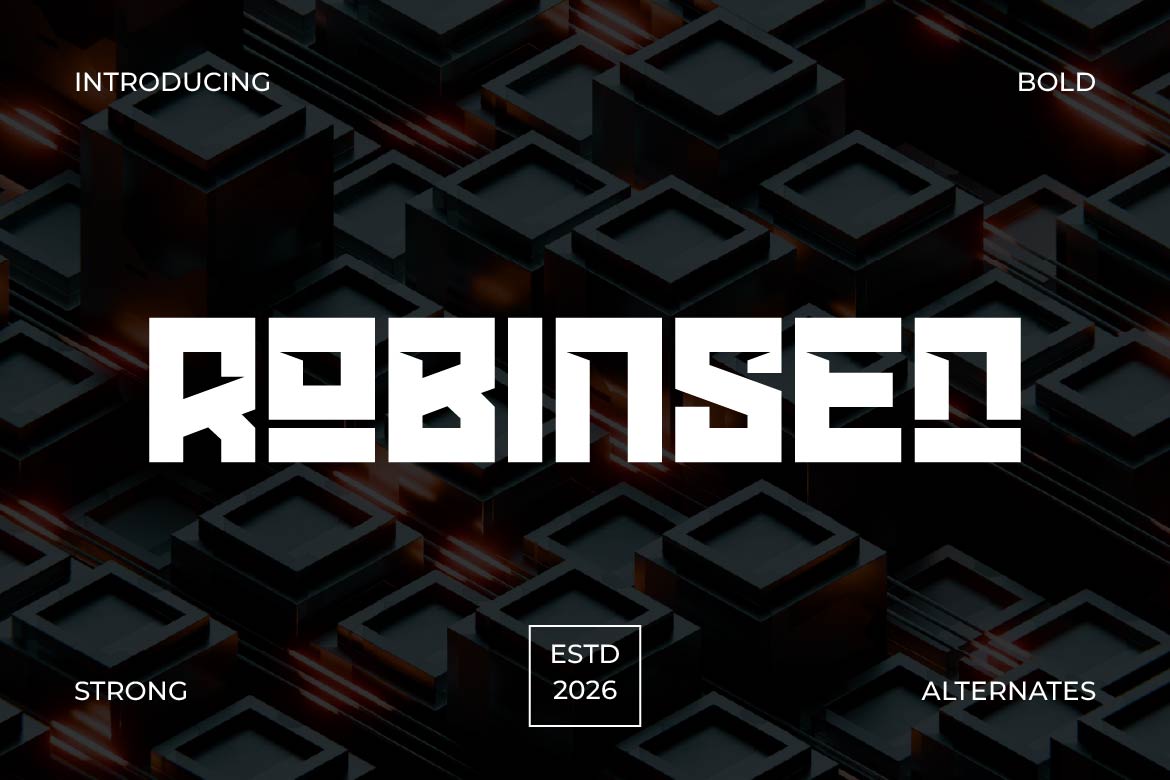
Robinsen – Strong Bold Technology Display Font
Robinsen is a strong bold technology display font engineered for futuristic branding and high-impact digital design. Featuring sharp geometry, powerful letterforms, and a modern industrial aesthetic, Robinsen creates a commanding visual presence that instantly captures attention.
Designed for technology companies, AI platforms, gaming brands, esports teams, startups, software products, and cyber-inspired projects, Robinsen delivers exceptional readability while maintaining an aggressive and innovative personality. Its bold construction makes it ideal for logos, headlines, posters, UI concepts, product launches, and promotional campaigns that demand a futuristic edge.
Whether you’re building the identity of a next-generation startup or designing visuals inspired by science fiction and advanced technology, Robinsen provides the confidence, precision, and impact needed to make your brand stand out.
Robinsen isn’t just a font—it’s a bold technological statement built for the future.
- Alternates